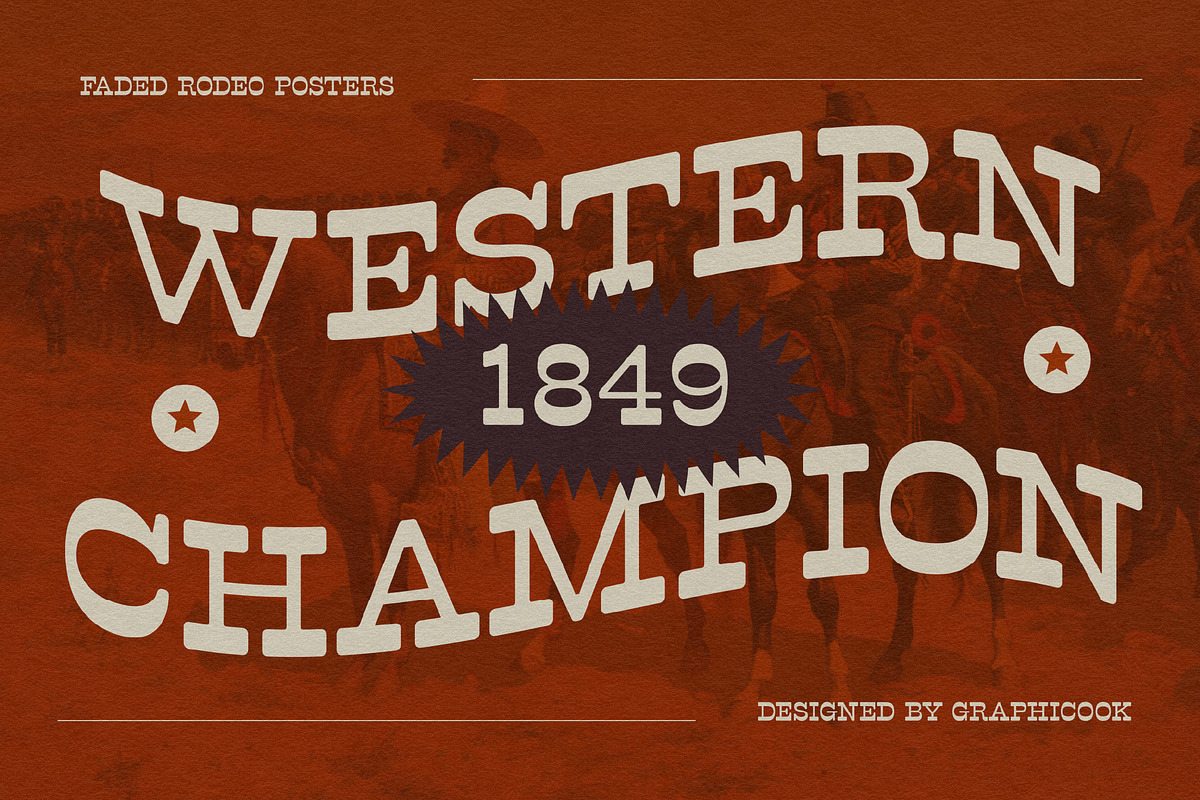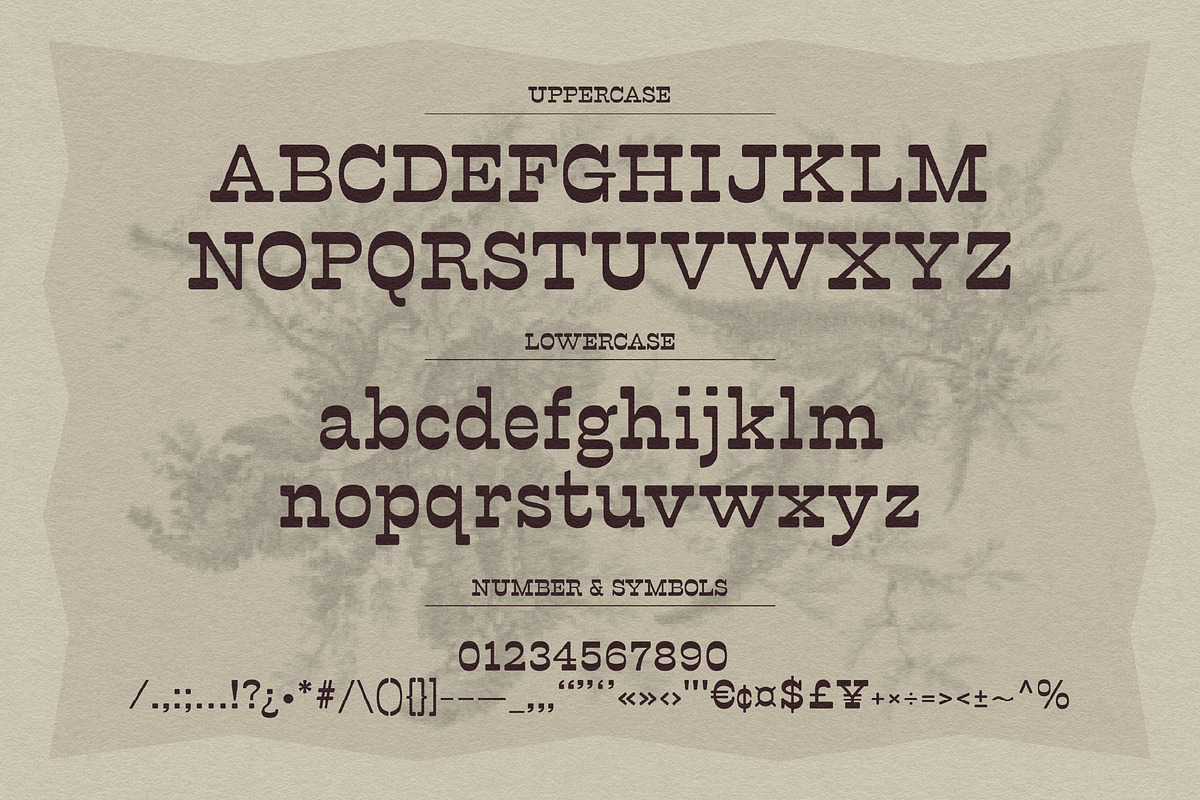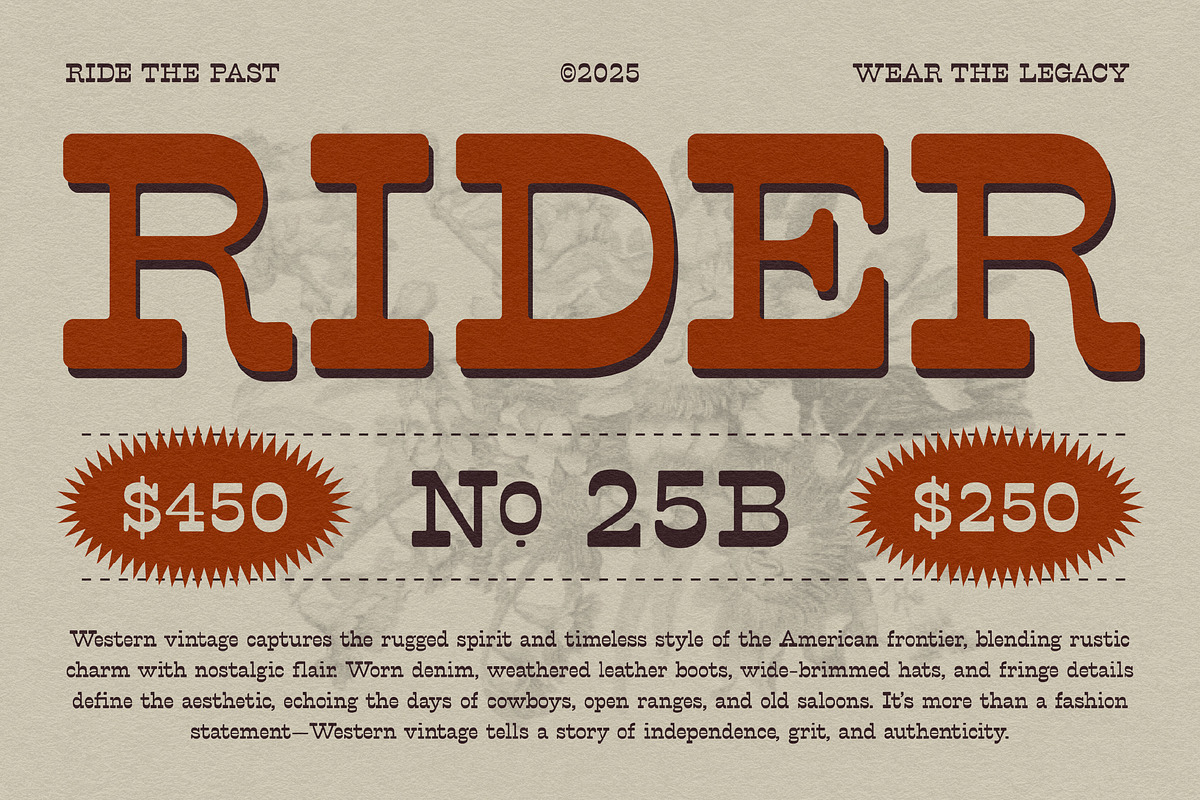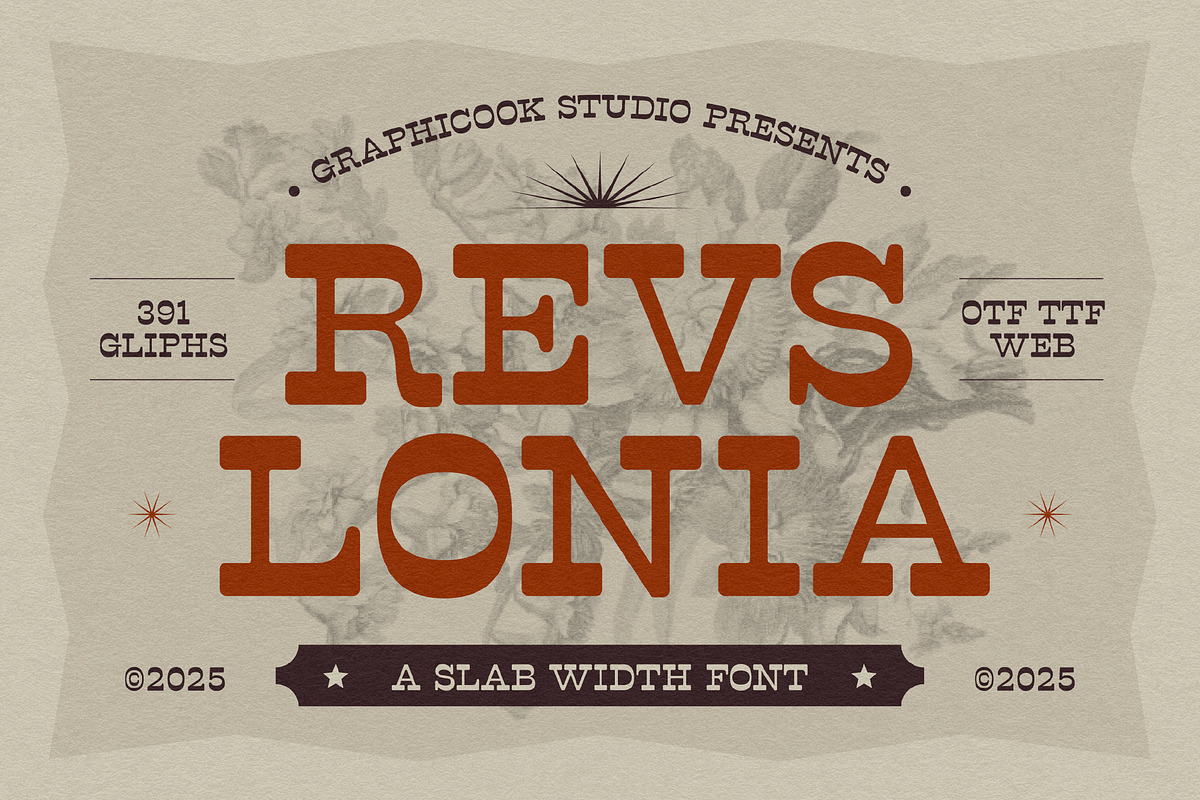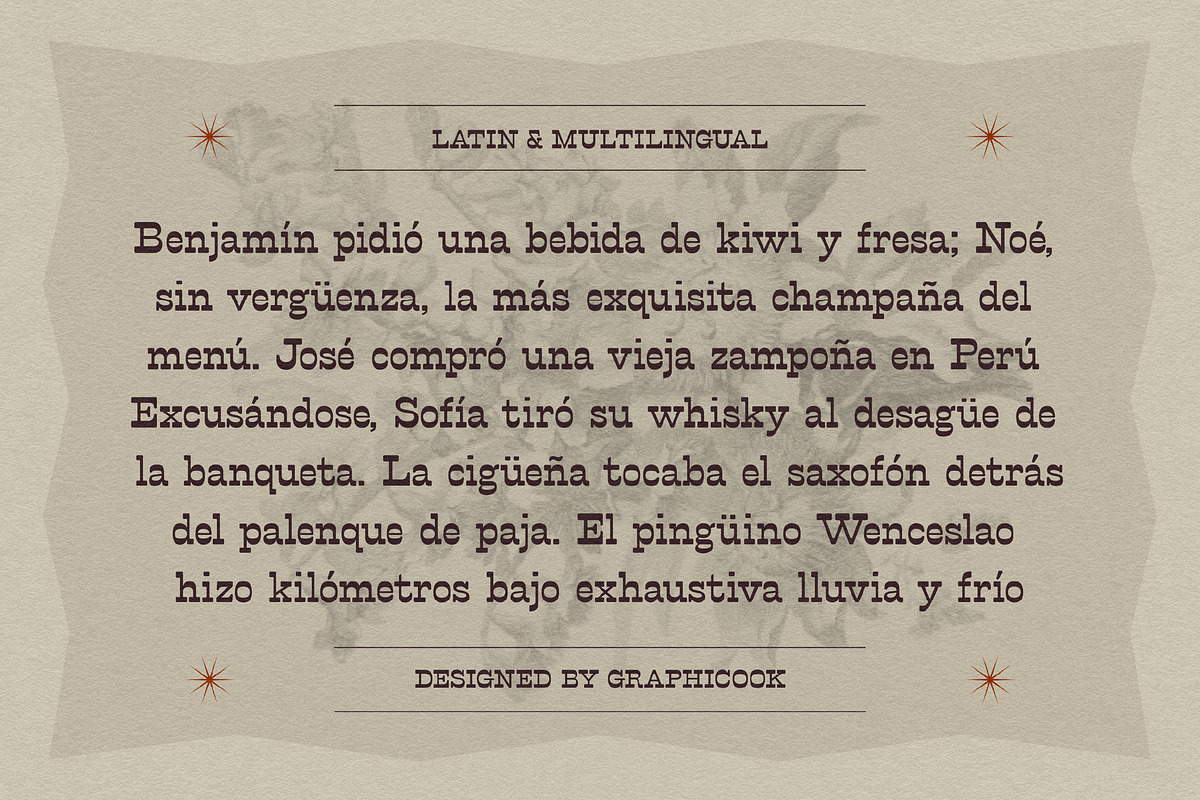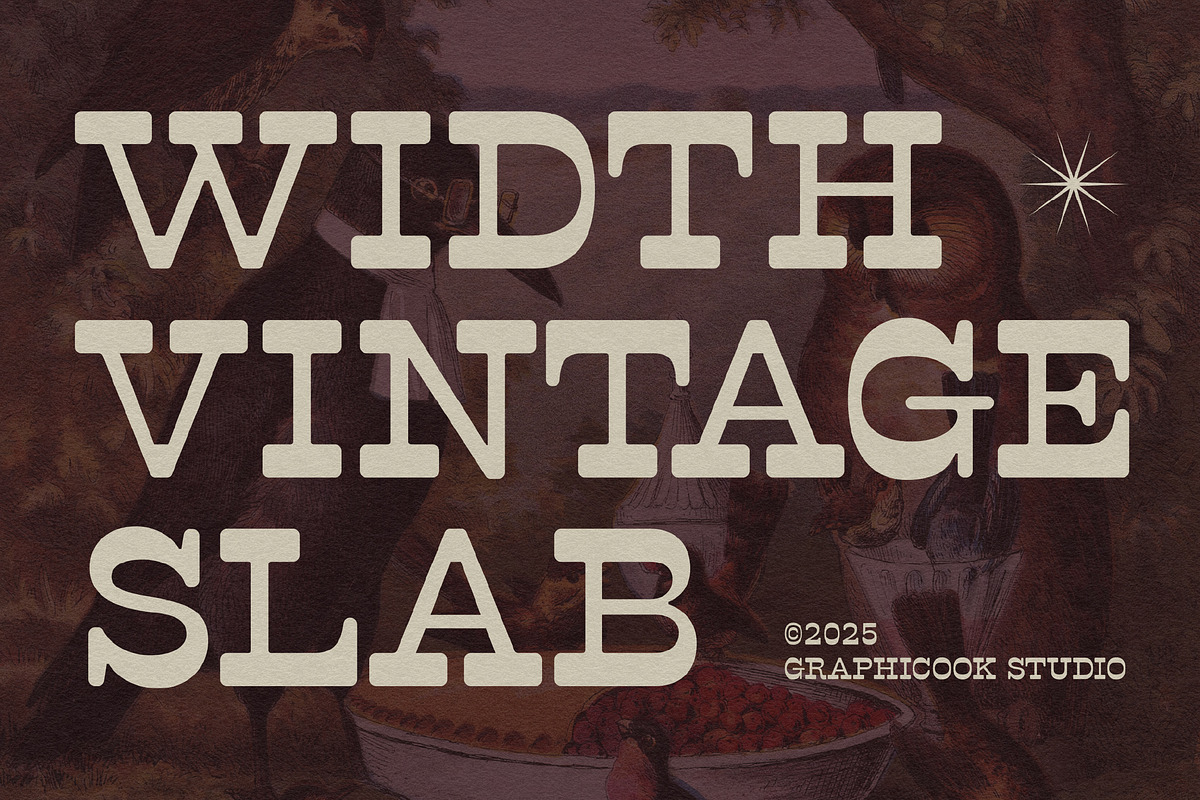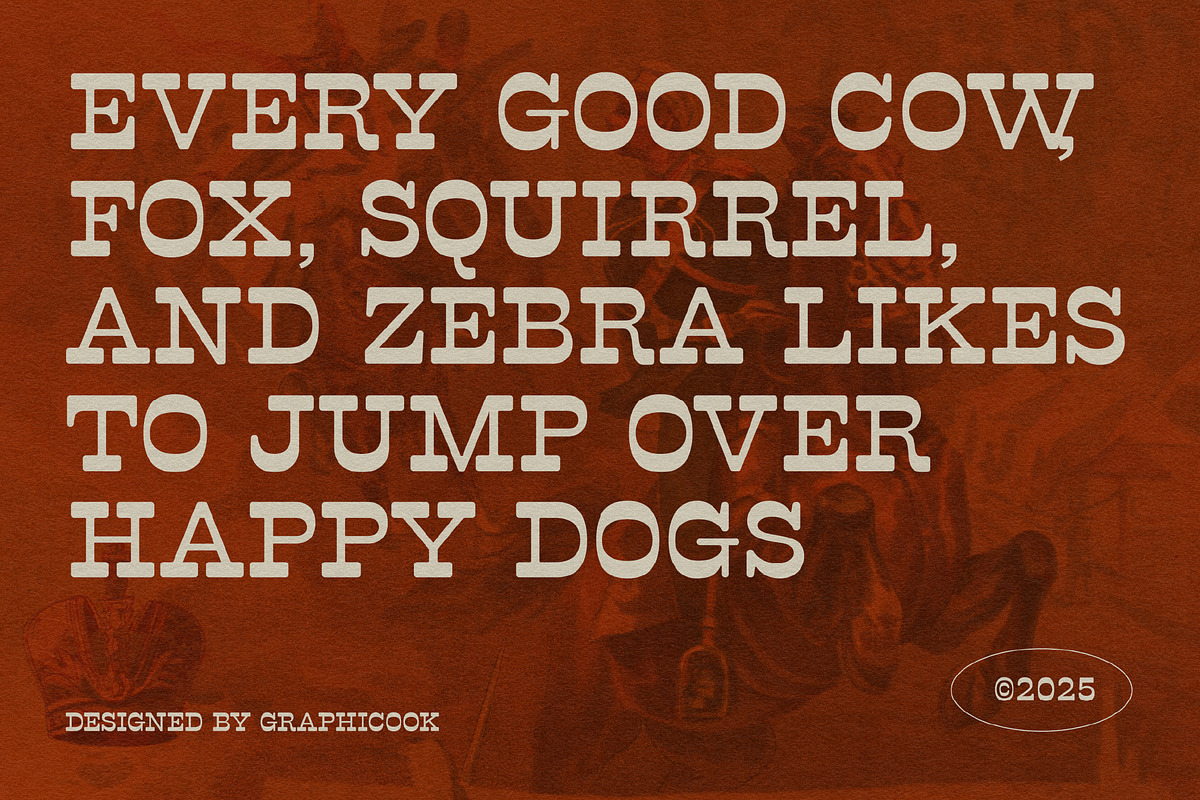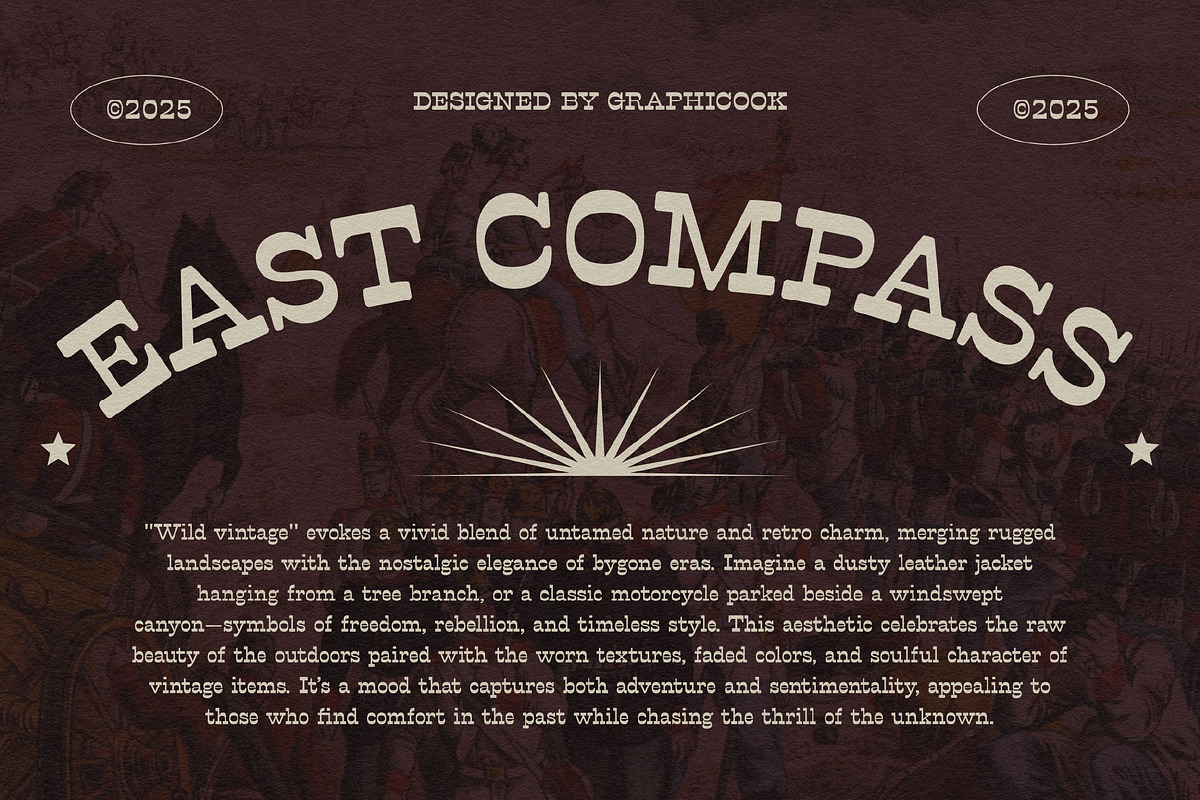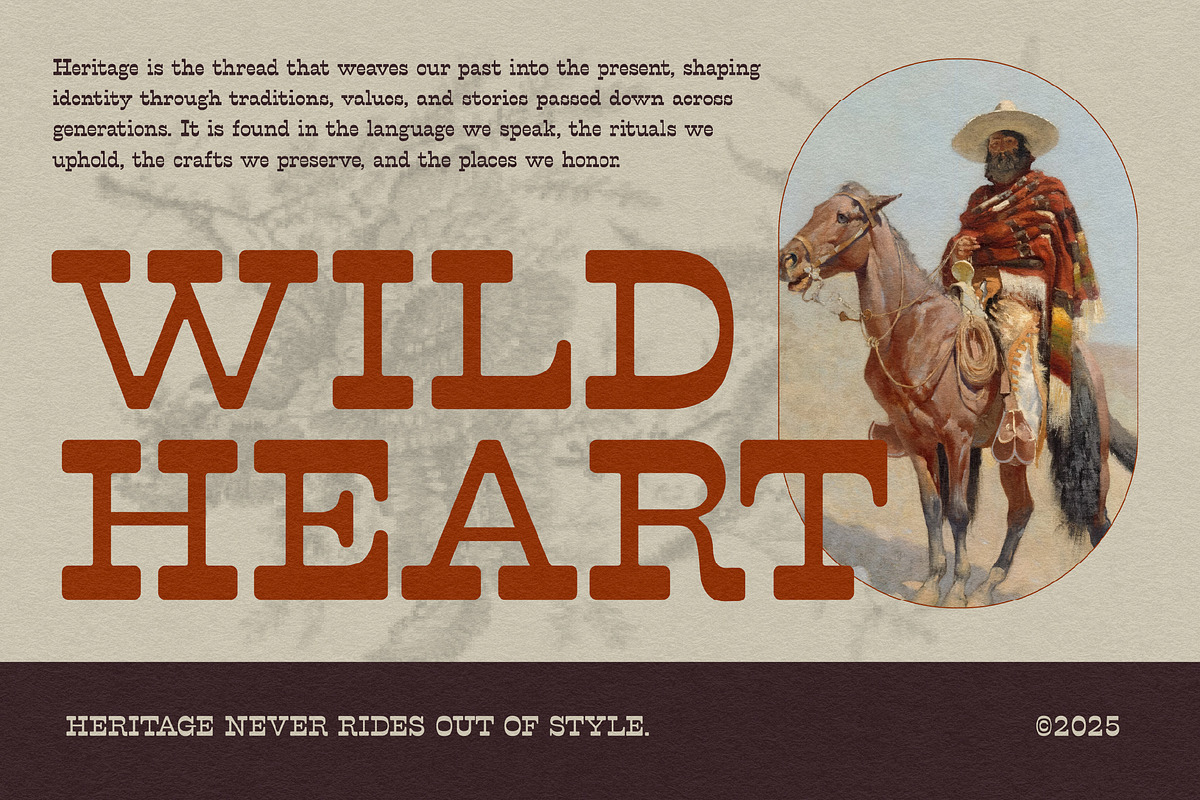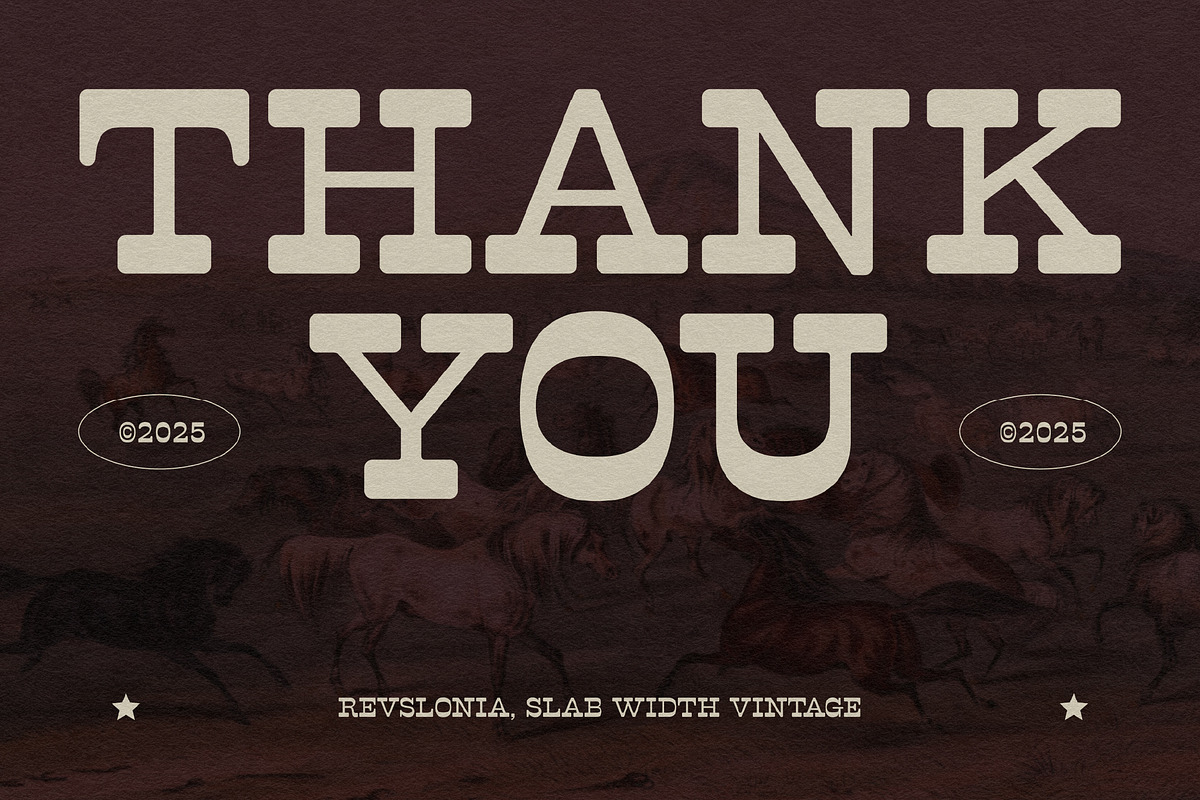
Revslonia
Revslonia is a slab-serif font with a bold, sturdy structure that creates a solid and stable impression. Suitable for logos, headlines, or designs with a vintage aesthetic.
Revslonia is perfect for headlines, logotypes, magazines, packaging, quotes, movies, games, cover albums, book covers, and flyers, it's a perfect solution for creating eye-catching designs that stand out in any context.